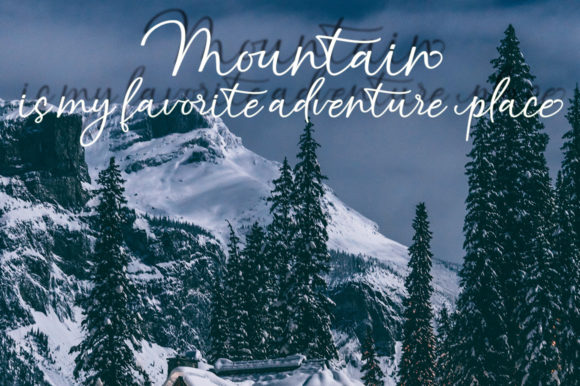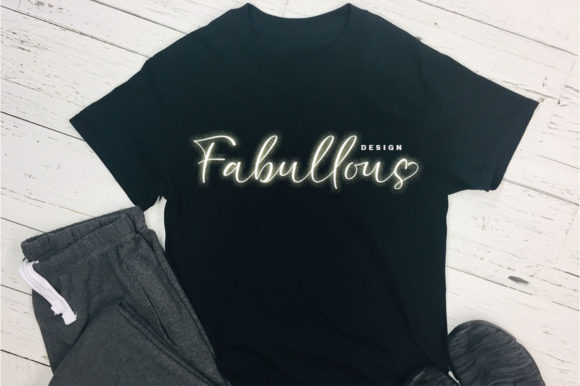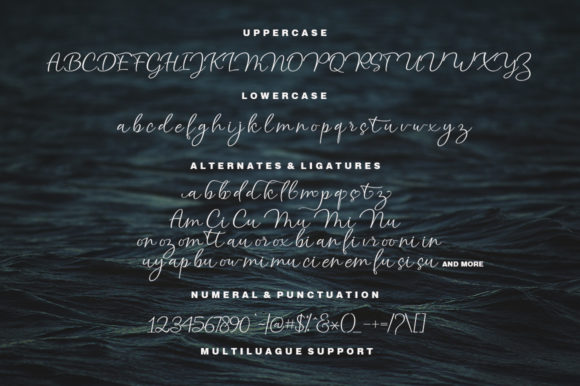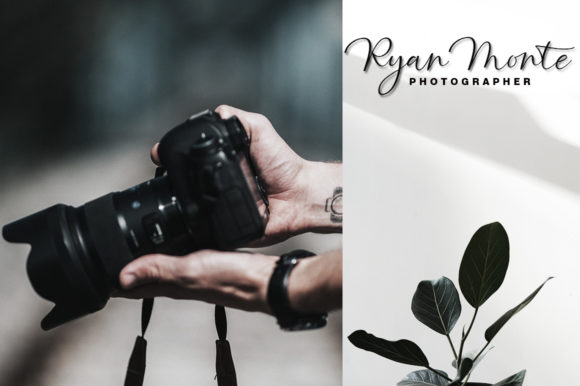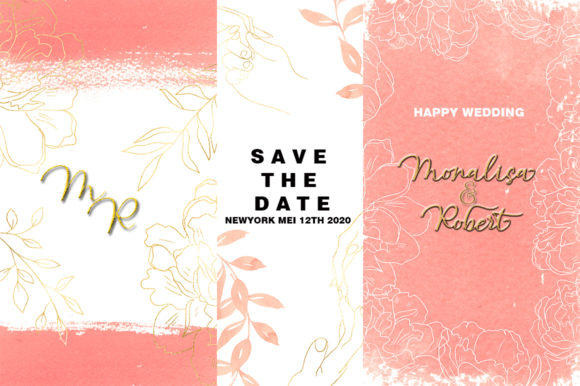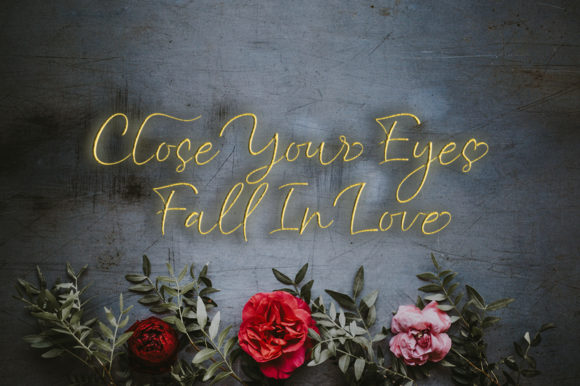
Discover the Elegance of Atlantic Script Font: Elevate Your Designs with a Vintage yet Clean Style
The Atlantic Script Font is a stunning addition to the world of typography, offering a beautiful, legible script that’s perfect for a wide range of projects. Whether you’re a designer, crafter, or simply someone who appreciates the art of lettering, this font is sure to captivate you with its unique blend of vintage charm and clean lines.
The Characteristics of Atlantic Script Font
So, what makes the Atlantic Script Font so special? For starters, its elegant and flowing script style is reminiscent of classic calligraphy, evoking a sense of nostalgia and sophistication. The font’s legibility is also noteworthy, making it an excellent choice for projects where clarity is essential. The Atlantic Script Font is also incredibly versatile, suitable for use in a variety of contexts, from formal invitations and certificates to branding, packaging, and digital media.
Why Choose Atlantic Script Font?
There are many reasons why designers and crafters alike will fall in love with the Atlantic Script Font. Here are just a few:
• Vintage yet clean style: The Atlantic Script Font boasts a unique blend of classic elegance and modern cleanliness, making it perfect for projects that require a touch of sophistication.
• Legibility: Unlike some script fonts, which can be difficult to read, the Atlantic Script Font is remarkably legible, even at smaller sizes.
• Versatility: Whether you’re working on a formal project or something more casual, the Atlantic Script Font is adaptable and easy to use.
Using Atlantic Script Font in Your Designs
So, how can you use the Atlantic Script Font to elevate your designs? Here are a few ideas to get you started:
• Wedding invitations and stationery: The Atlantic Script Font is perfect for creating beautiful, elegant wedding invitations, save-the-date cards, and other stationery.
• Branding and packaging: Add a touch of sophistication to your brand’s packaging and marketing materials with this stunning script font.
• Digital media: Use the Atlantic Script Font to create eye-catching social media graphics, blog headers, and other digital content.
• Crafting and DIY projects: This font is also great for crafters who want to add a personal touch to their projects, such as handmade cards, scrapbooking, and iron-on designs.
Tips for Working with Atlantic Script Font
To get the most out of the Atlantic Script Font, here are a few tips to keep in mind:
• Experiment with different sizes: The Atlantic Script Font looks great at a range of sizes, from large headings to smaller body text.
• Play with color and texture: Add depth and interest to your designs by experimenting with different colors and textures.
• Pair it with other fonts: The Atlantic Script Font pairs beautifully with a range of other fonts, from clean sans-serifs to elegant serifs.
In conclusion, the Atlantic Script Font is a beautiful, legible script that’s perfect for designers and crafters looking to add a touch of vintage elegance to their work. With its unique blend of classic charm and modern cleanliness, this font is sure to become a staple in your design toolkit. So why not give it a try and see the difference it can make in your designs?